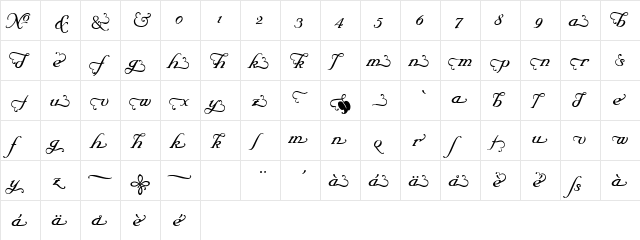
Elegeion Script Alternates Regular
Design Context for Elegeion Script Alternates Typeface
Elegeion Script Alternates brings a calligraphic fluidity to the page — its connecting strokes and expressive curves give it an unmistakably human quality.
Font Pairing: Combine Elegeion Script Alternates with a simple geometric sans for maximum contrast — the tension between flowing curves and clean structure is a classic typographic pairing.
Pro Tip: Use Elegeion Script Alternates for short runs of text — names, titles, or taglines. Extended body copy in script faces tires the eye quickly.